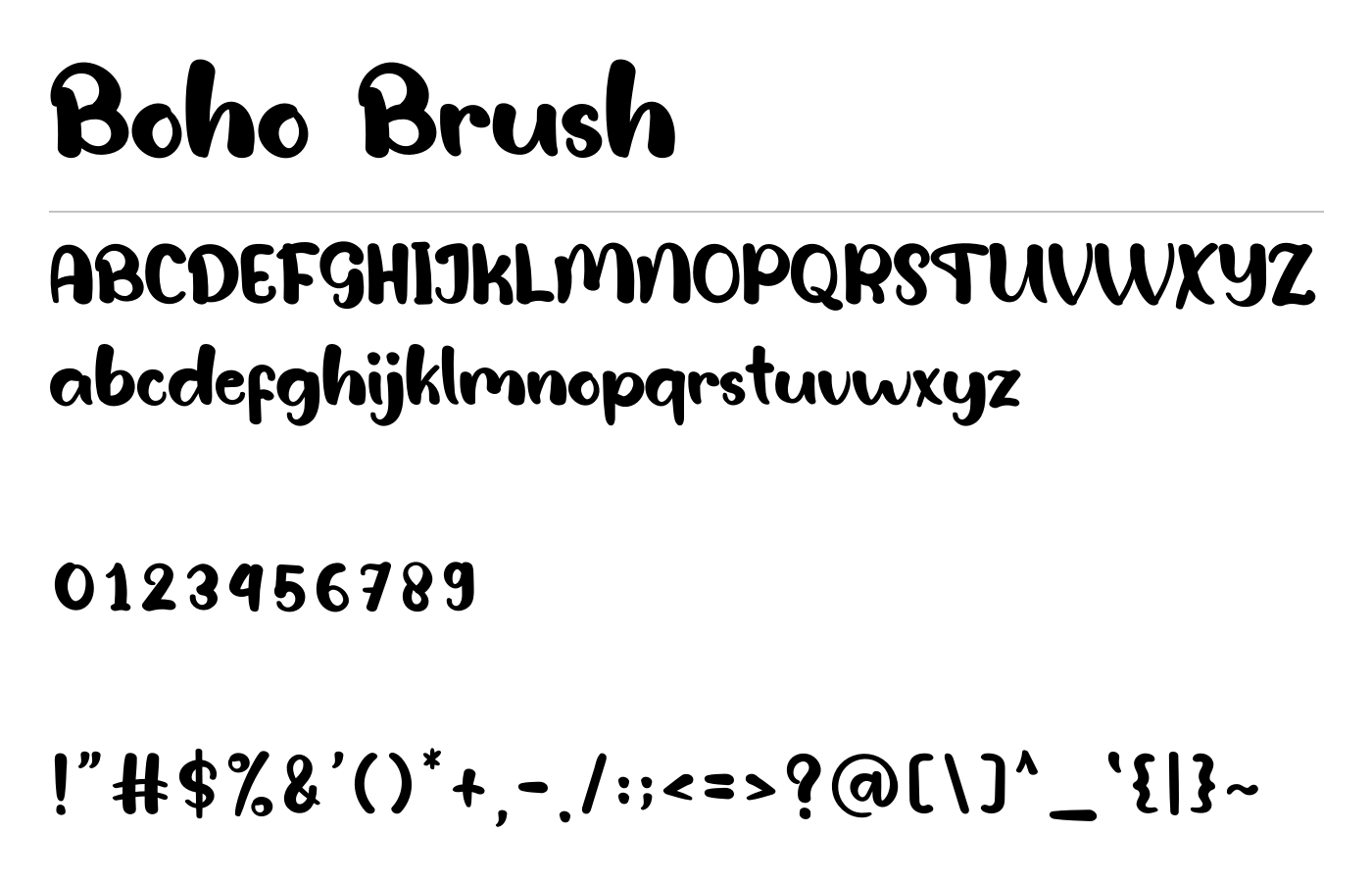
Boho Brush is a playful and bold brush script font featuring rounded, hand-painted strokes that give it a friendly and casual vibe. Its thick, slightly irregular letterforms with a strong x-height make it highly legible and perfect for creating inviting headlines, logos, or creative packaging that want to convey warmth and approachability. This font works well in designs that aim for a handcrafted, artistic feel while maintaining clarity and charm.
Boho Brush Font
About Boho Brush Font